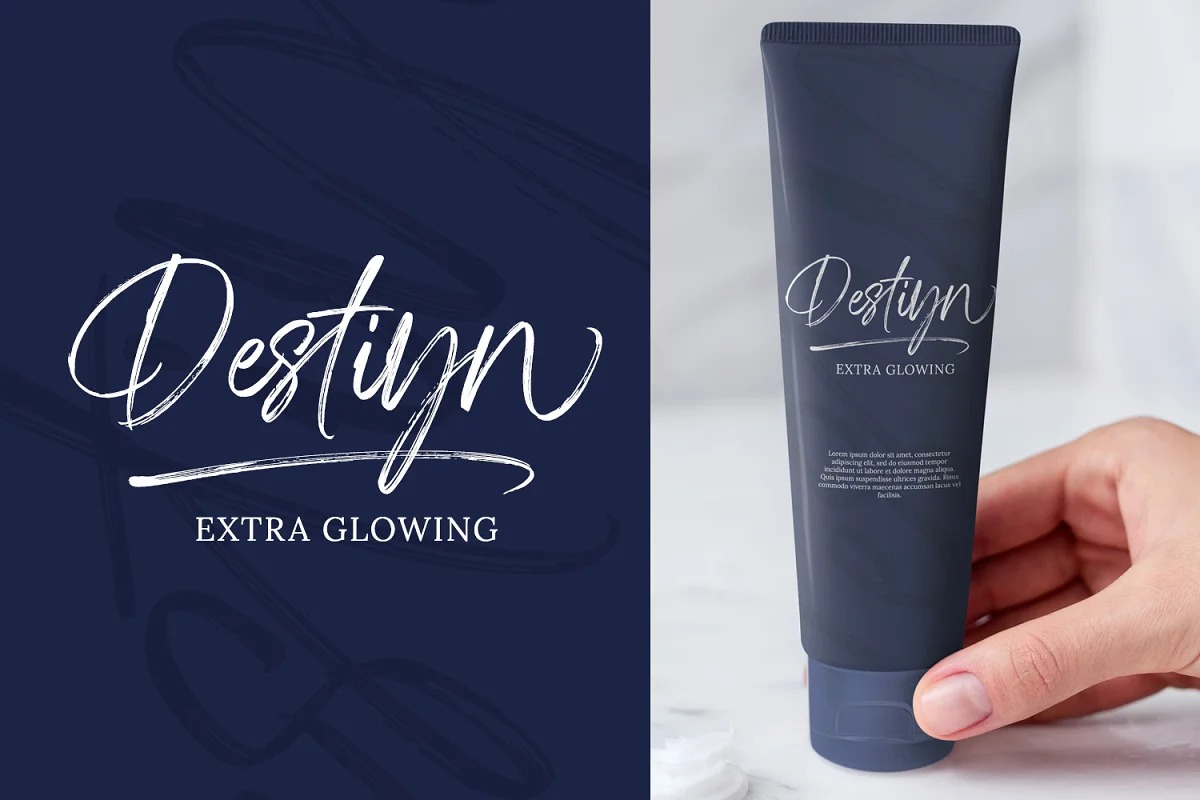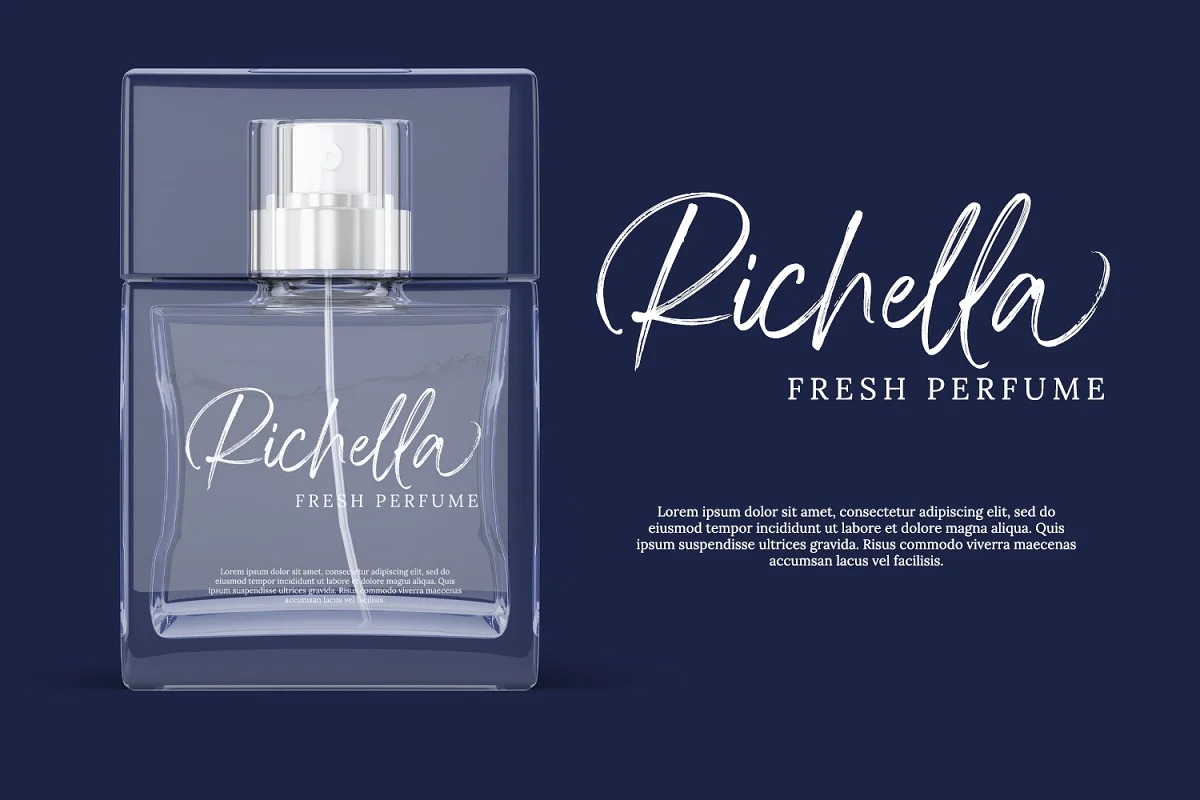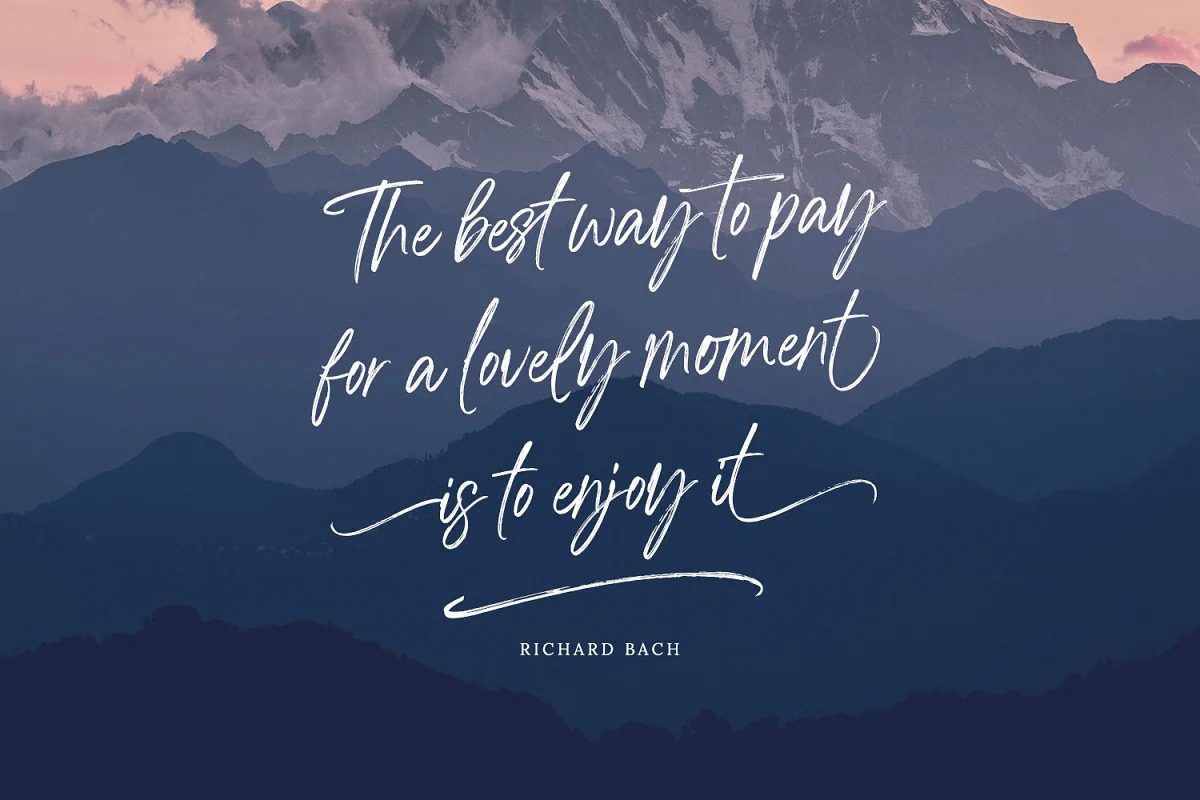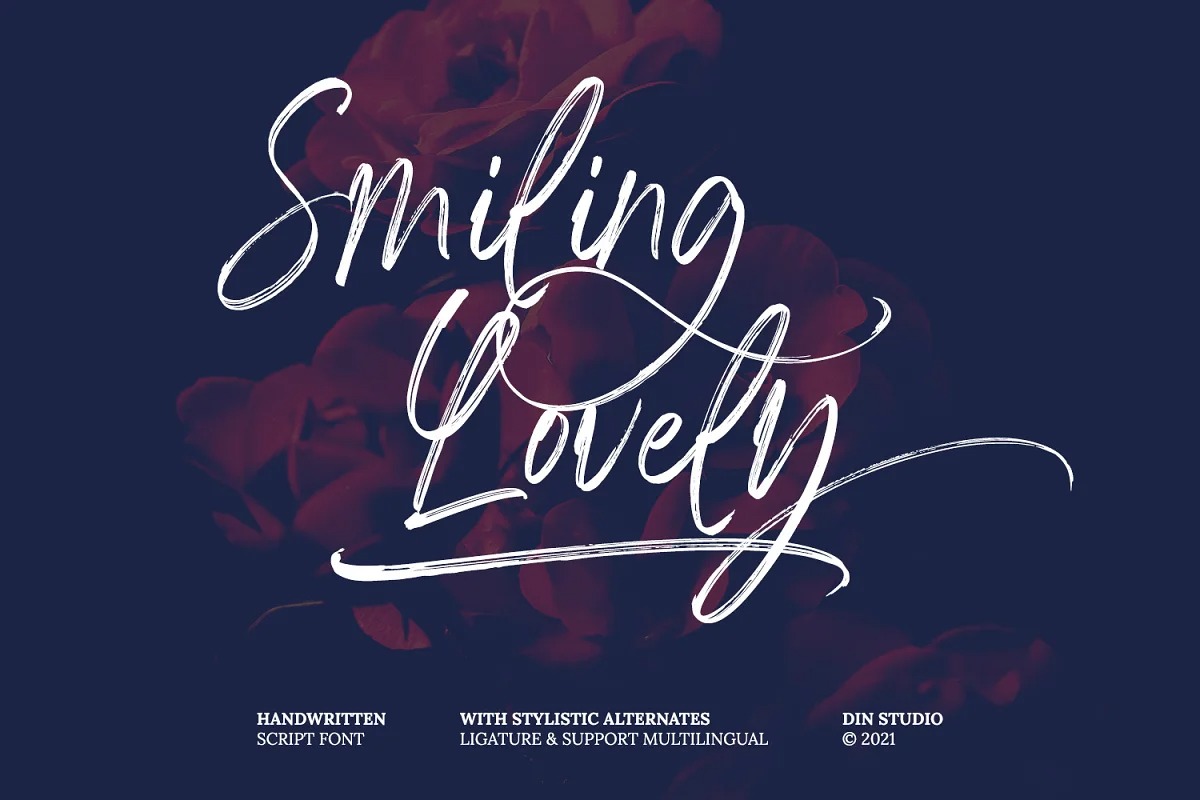
Smiling Lovely Font
Smiling Lovely Brush Font
This font designed by Din Studio is a natural hand-brushed typeface in a luxurious, classy, and timeless style. A handcrafted font that is combined with brush style inspired from recently trend style making this font the best choice to whatever your design is. Smiling Lovely is mainly intent for logo, headings, branding, magazine, cover album, book cover, movie, apparel design, quotes, invitations, flyer, poster, greeting cards, product packaging, printed quotes, etc.